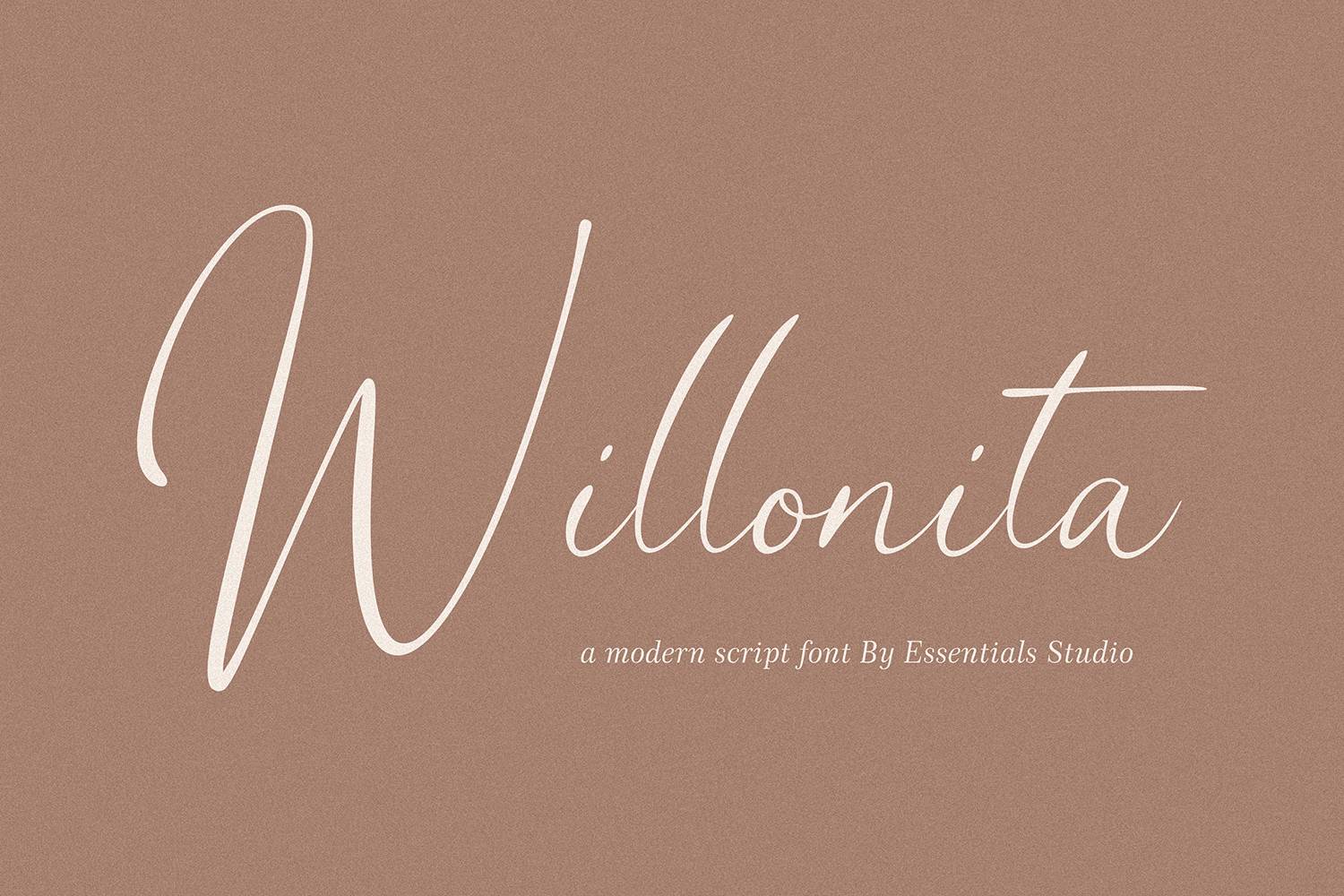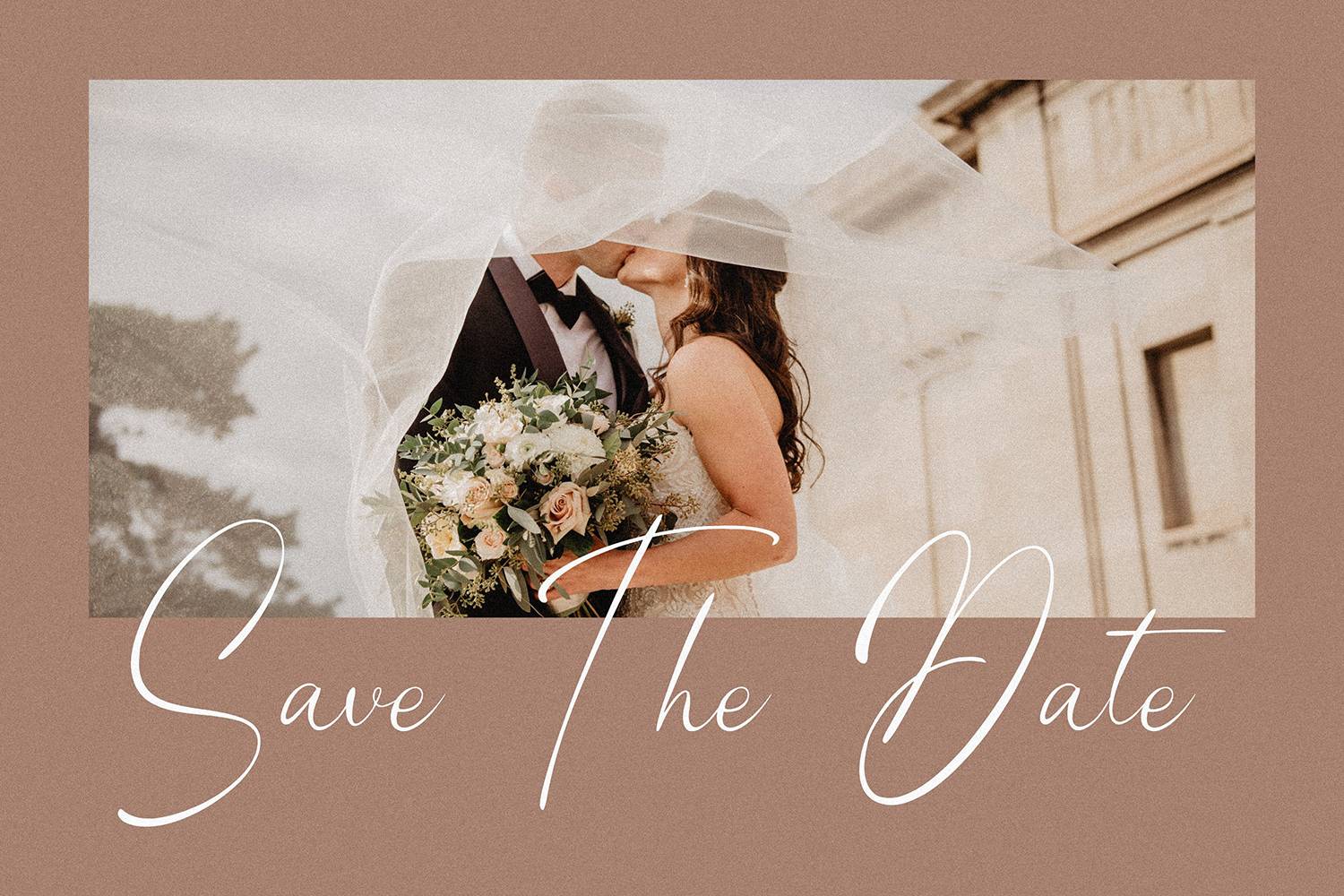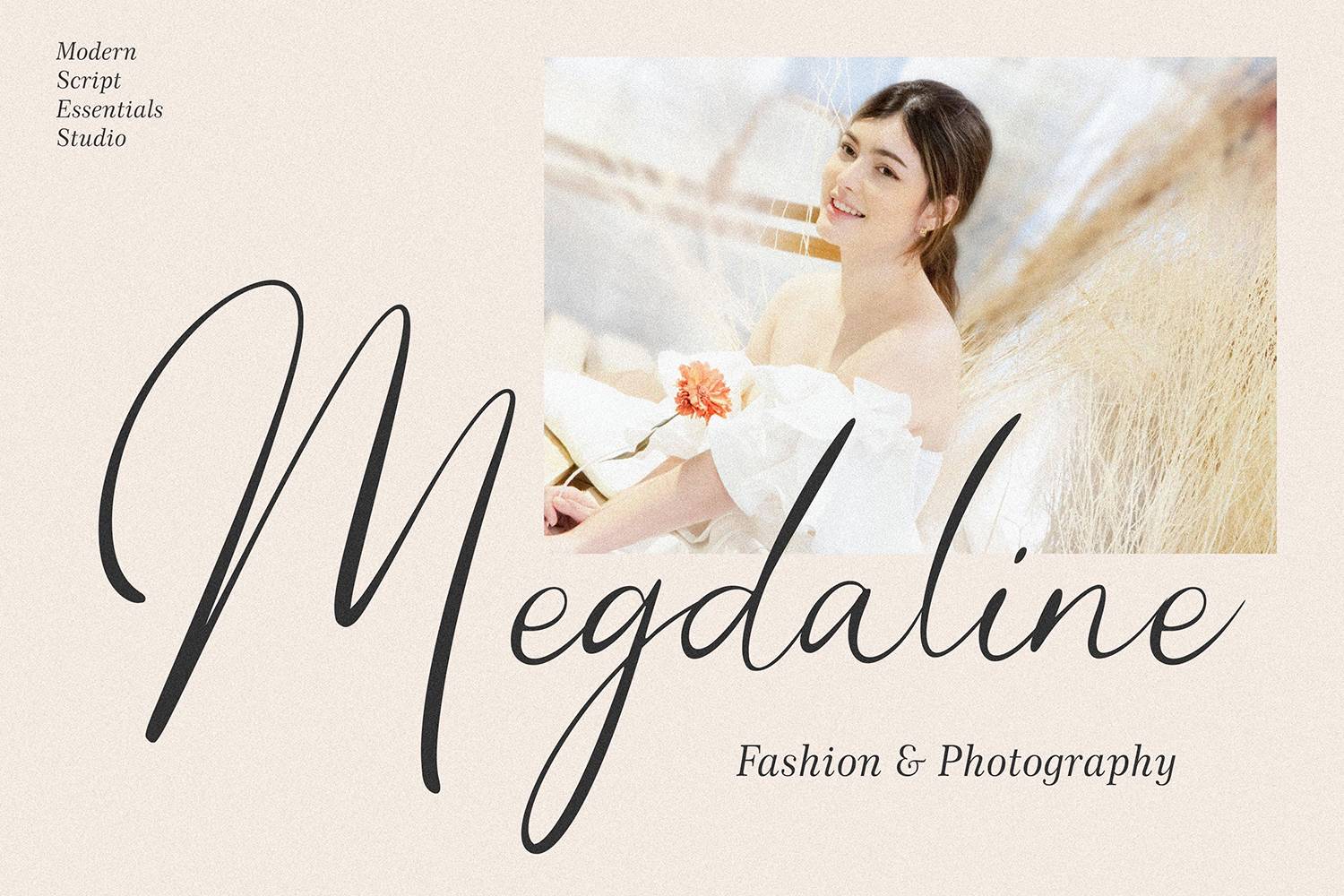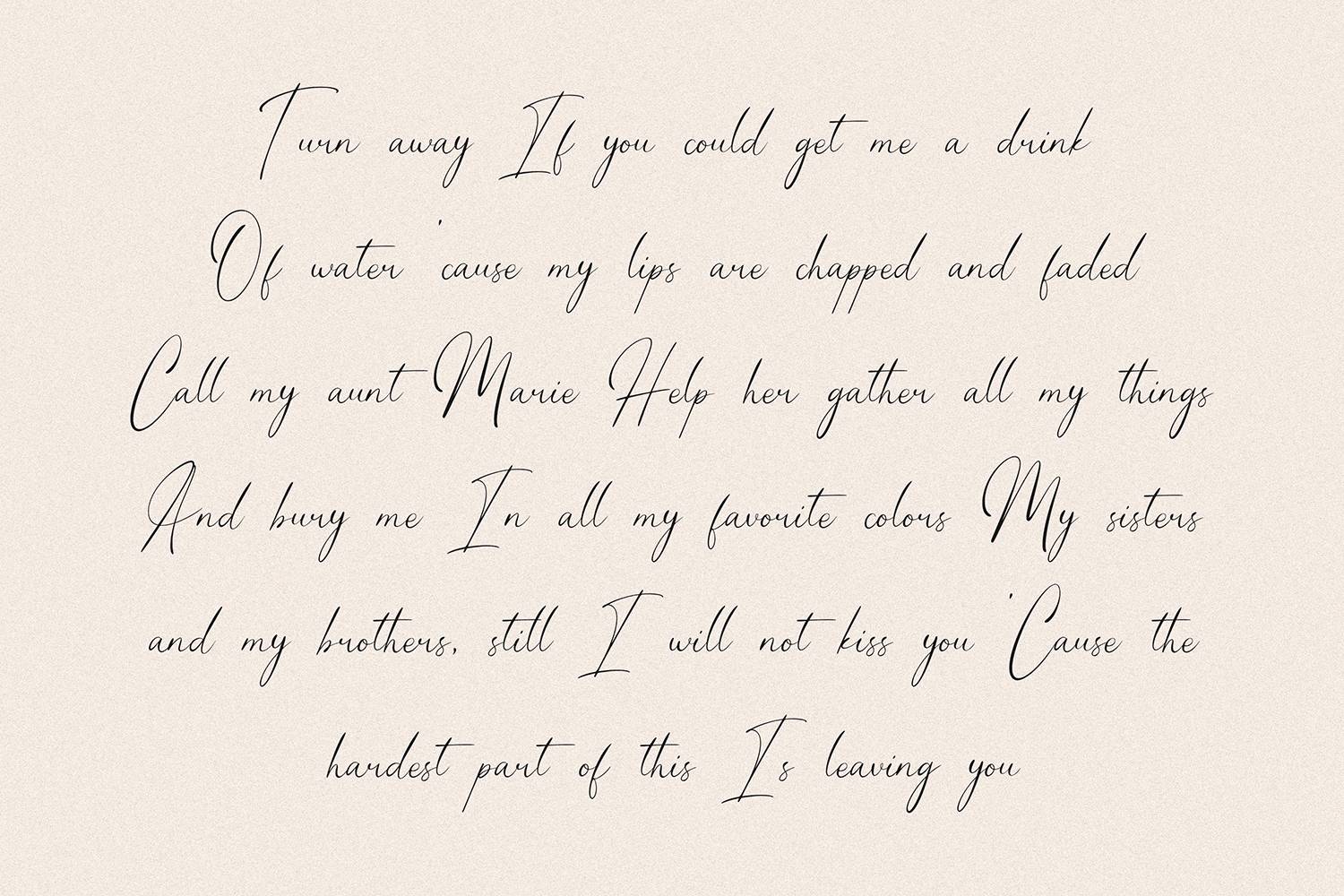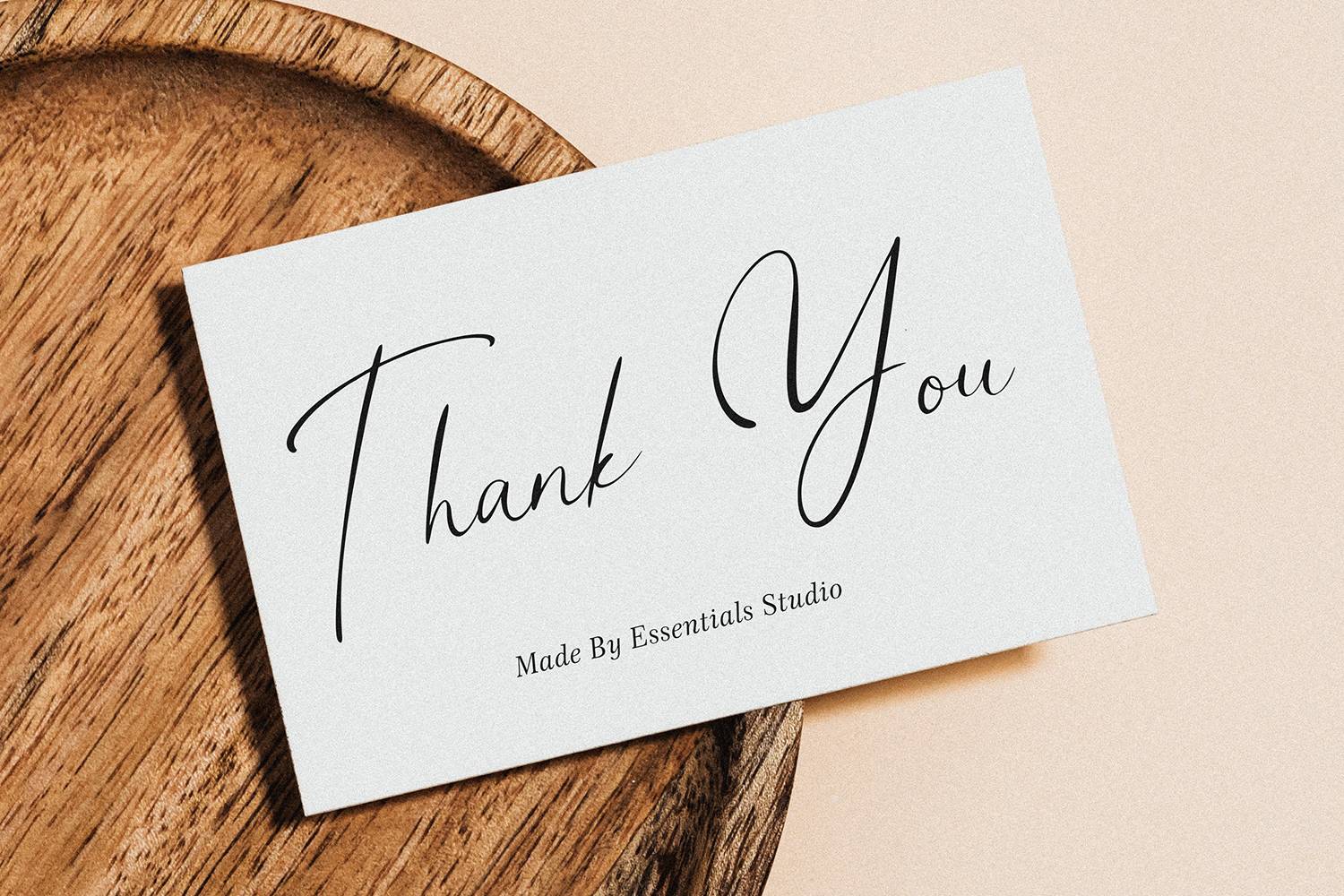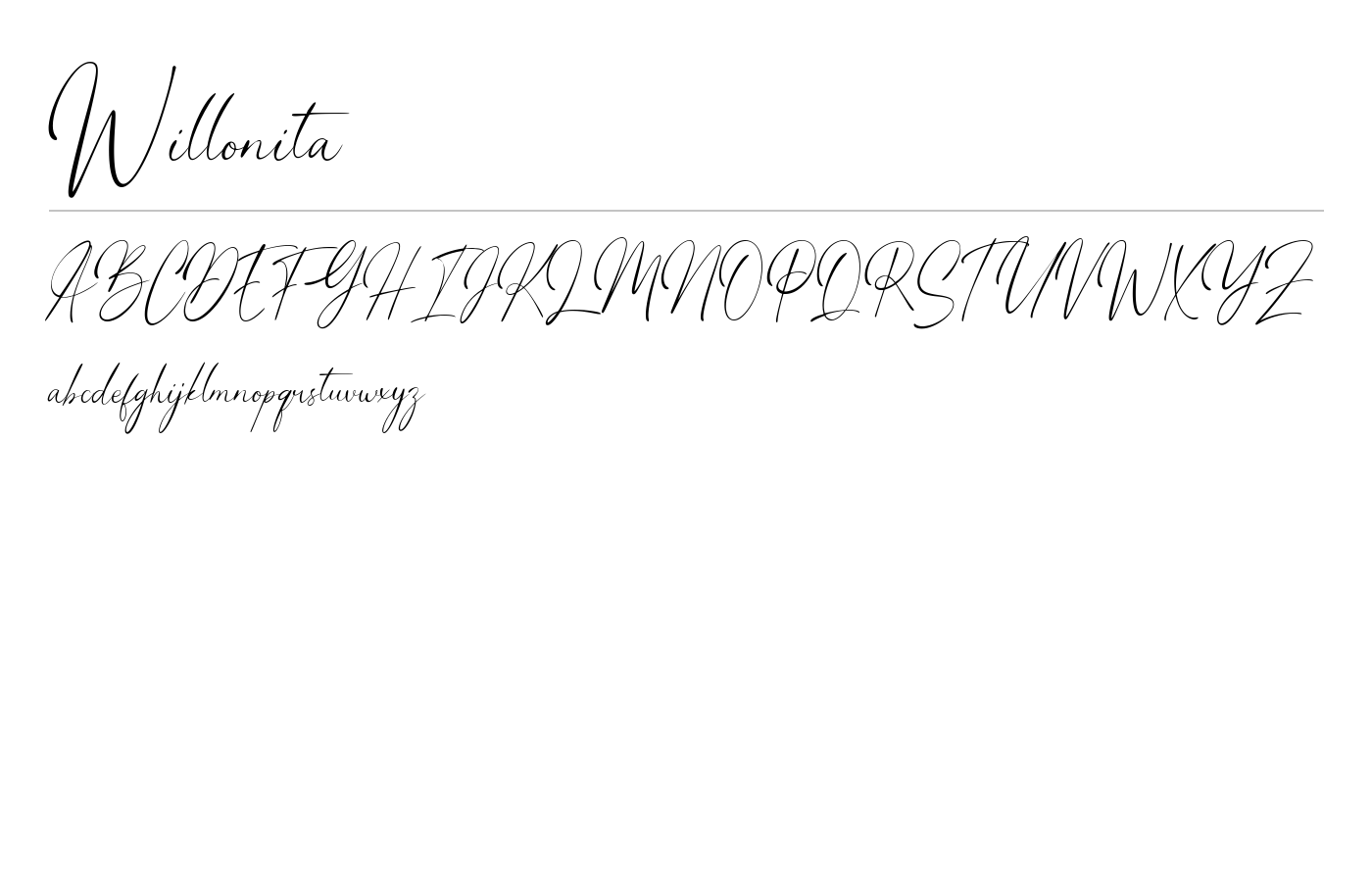
Willonita is an elegant script font characterized by its delicate, flowing strokes and slender letterforms that evoke a sense of sophistication and grace. Its light weight and tall x-height give it a refined, airy feel, making it perfect for luxury branding, wedding invitations, and stylish editorial headlines where a touch of personal, handwritten charm is desired. This font shines in designs that seek to communicate elegance, creativity, and a subtle modern flair.
Willonita Font
| Designer | Sulthan Mada Maulana Tsani |